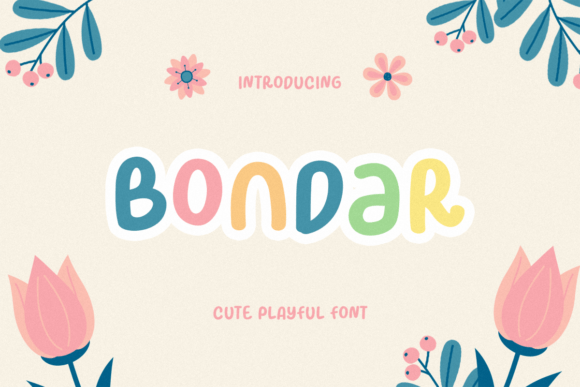
Bondar Font: The Fun and Playful Hand-Lettered Typeface
Bondar Font is a modern, hand-lettered typeface that has gained popularity among designers and artists for its unique and playful style. This font is perfect for creating eye-catching logotypes, flyers, greeting cards, packaging, book covers, printed quotes, headings, and more. In this article, we’ll dive into the world of Bondar Font, exploring its features, uses, and benefits.
What is Bondar Font?
Bondar Font is a hand-lettered typeface designed to add a touch of personality and whimsy to any design project. Its fun and playful style makes it an excellent choice for designers looking to create unique and engaging visual content. The font features a distinctive, hand-drawn aesthetic with varying line widths and a lively feel.
Key Features of Bondar Font
- Hand-lettered style: Bondar Font boasts a genuine, hand-lettered look that sets it apart from traditional typefaces.
- Playful and fun: The font’s playful nature makes it perfect for designs that require a lighthearted and creative approach.
- Varying line widths: The font features varying line widths, which add to its hand-drawn feel and create a sense of movement.
- Unique character set: Bondar Font includes a range of characters, numbers, and punctuation marks, making it suitable for a wide range of design applications.
Uses of Bondar Font
Bondar Font is an incredibly versatile typeface that can be used in various design projects, including:
- Logotypes: Create memorable and eye-catching logos that showcase your brand’s personality.
- Flyers and brochures: Add a playful touch to your marketing materials and make them stand out.
- Greeting cards: Design beautiful and unique greeting cards for special occasions.
- Packaging: Use Bondar Font to create eye-catching packaging that reflects your brand’s personality.
- Book covers: Add a touch of whimsy to your book covers and make them more appealing to readers.
- Printed quotes: Create inspiring and visually appealing quotes that can be used on social media or in print.
- Headings and titles: Use Bondar Font to create stunning headings and titles that add personality to your designs.
Benefits of Using Bondar Font
There are several benefits to using Bondar Font in your design projects:
- Unique and creative: Bondar Font allows you to add a touch of personality and creativity to your designs.
- Easy to read: Despite its playful nature, Bondar Font is easy to read and understand, making it suitable for a wide range of applications.
- Versatile: The font can be used in various design projects, from logotypes to book covers.
- Time-saving: With Bondar Font, you can create stunning designs quickly and efficiently, saving you time and effort.
Tips for Using Bondar Font
To get the most out of Bondar Font, follow these tips:
- Use it sparingly: Bondar Font is best used sparingly, as its playful nature can be overwhelming if overused.
- Pair it with other fonts: Combine Bondar Font with other fonts to create visually appealing and balanced designs.
- Experiment with colors: Try out different colors and textures to add depth and interest to your designs.
- Keep it legible: Ensure that your text is legible by using a suitable font size and adjusting the line spacing.
Bondar Font is a fun and playful hand-lettered typeface that can add a touch of personality and whimsy to any design project. Its unique features, versatility, and ease of use make it an excellent choice for designers and artists. By following the tips outlined in this article, you can get the most out of Bondar Font and create stunning designs that showcase your creativity.
- What is Bondar Font? Bondar Font is a hand-lettered typeface designed for creative and playful designs.